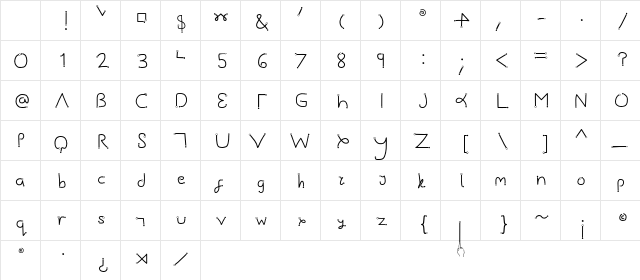
Complete Gesture Points glyph index. Displaying only characters natively supported by Gesture Points font.
Gesture is a composed and adaptable typeface that performs quietly and consistently across a wide range of design contexts.